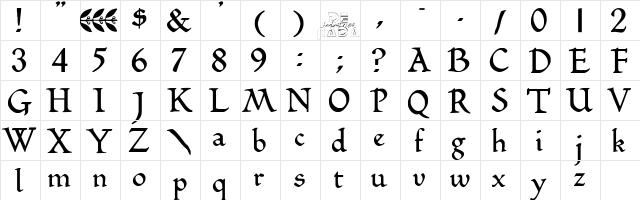
Romeodn Medium
Design Context for Romeodn Typeface
Romeodn offers clean, dependable letterforms without strong stylistic allegiance, making it a practical choice for designers who need flexibility.